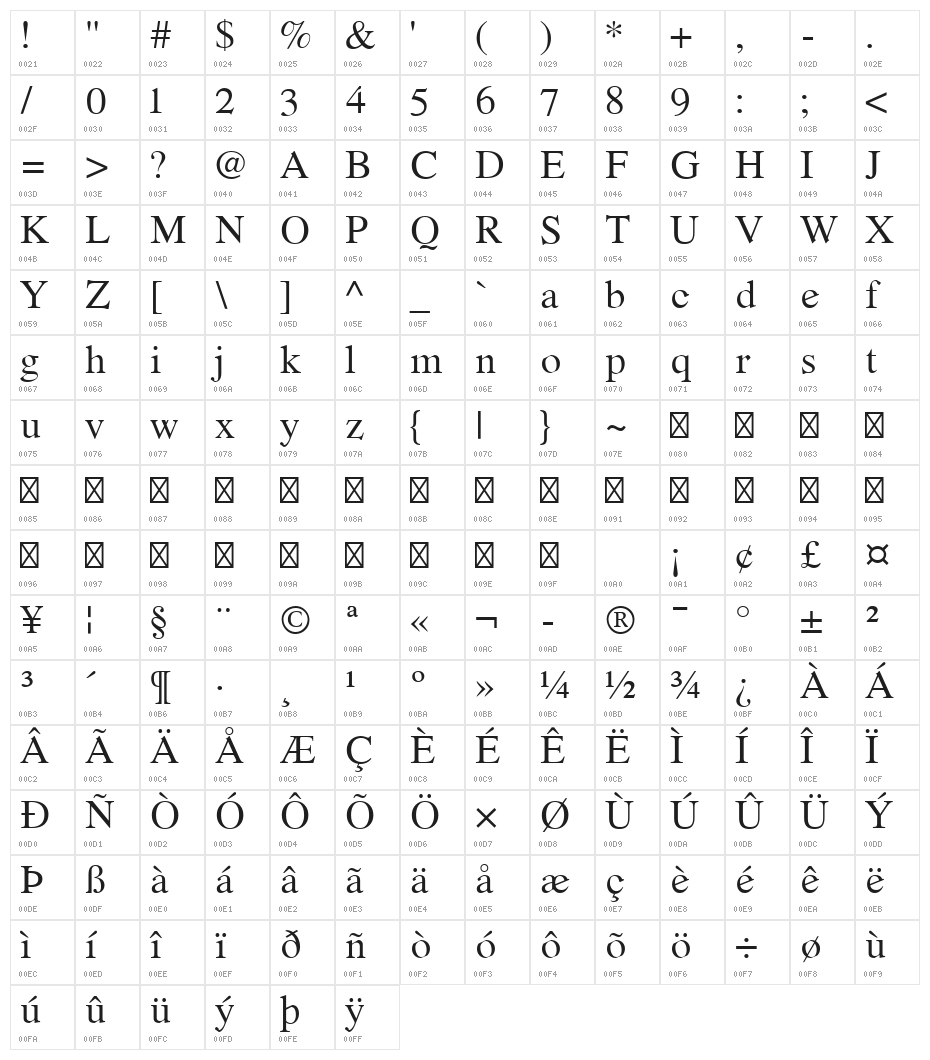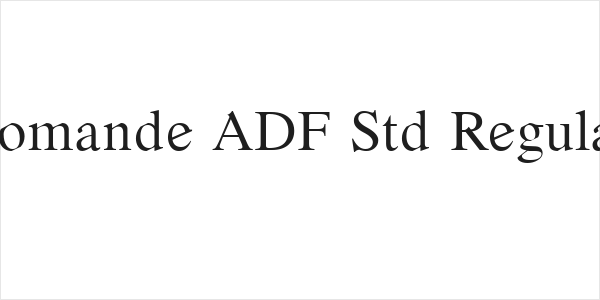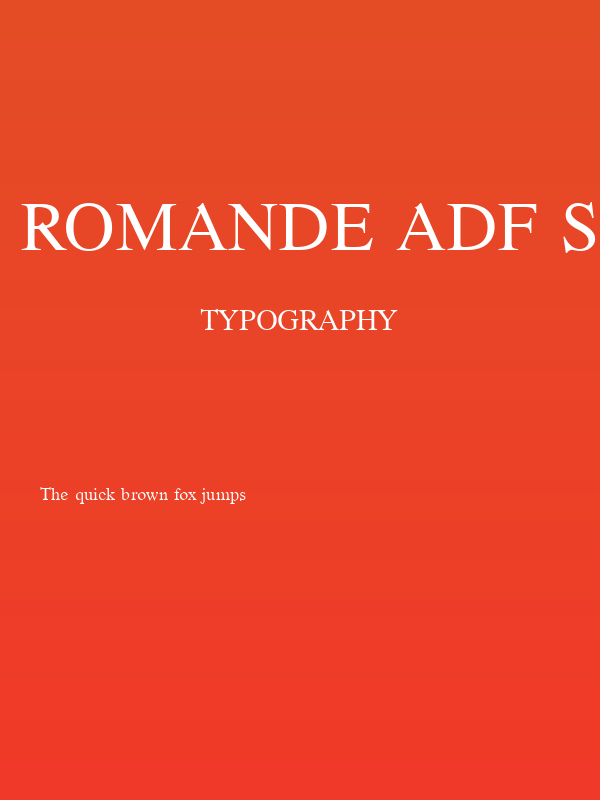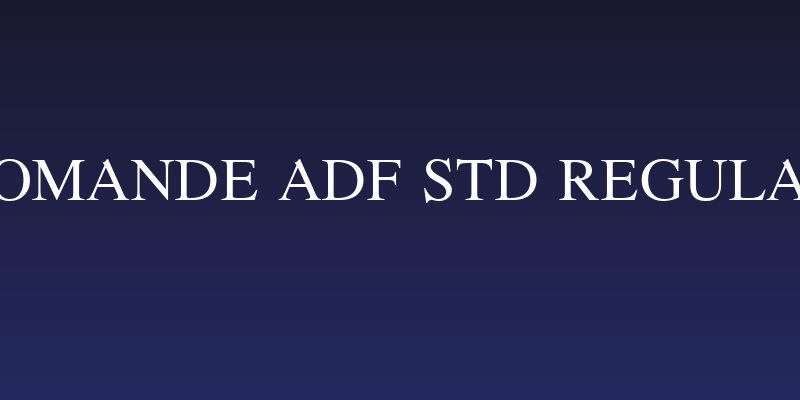
Romande ADF Std Regular Font
Romande ADF Std Regular Description
This typeface exhibits a classic serif style with elegant and refined strokes. The characters are well-proportioned, featuring a harmonious balance between thick and thin lines, which adds a touch of sophistication. The serifs are pronounced yet not overly exaggerated, providing a traditional feel while maintaining readability. The uppercase letters are stately and commanding, while the lowercase letters are smooth and flowing, offering a graceful appearance. Numerals are clear and distinct, ensuring legibility. The special characters are crafted with attention to detail, complementing the overall aesthetic.
| Proposed Projects | Ideal for editorial design, book covers, formal invitations, and branding projects that require a touch of elegance. |